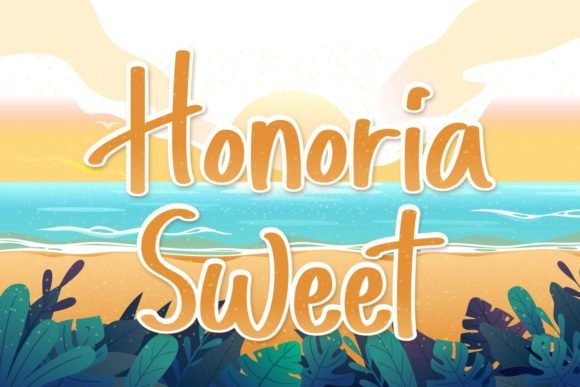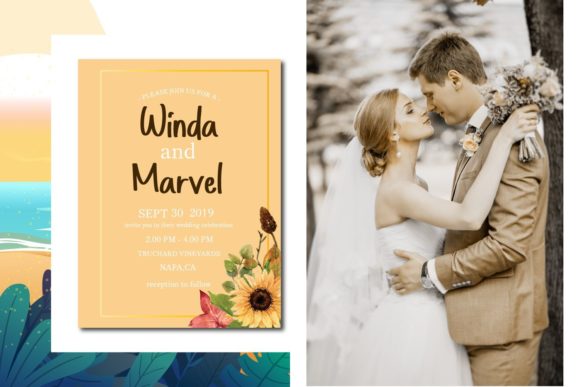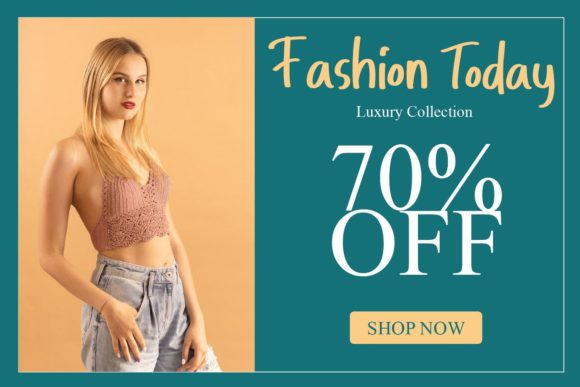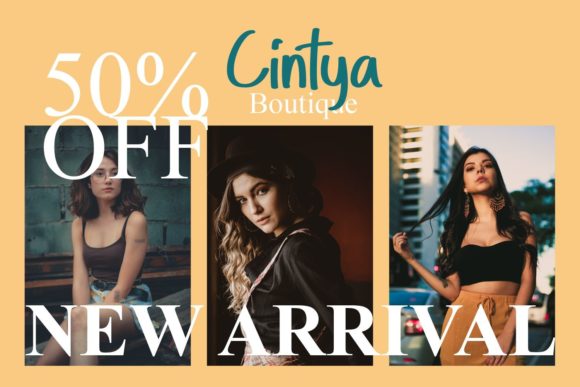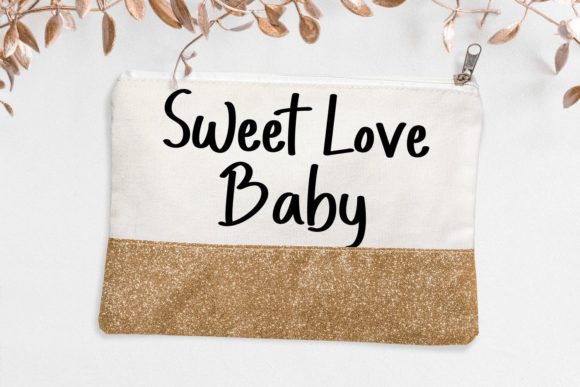
The Joy of Handwritten Typography
Have you ever been brainstorming a new project, and suddenly, a spark of creativity strikes? You envision the perfect font, the one that captures the essence of your brand and makes it stand out. For many designers, that moment of inspiration is what makes the creative process so exhilarating.
For those moments of inspiration, you’ll want a font that’s as charming as it is versatile. That’s where the Honoria Sweet Font comes in – a delightful, handwritten font that’s perfect for crafting eye-catching logos, branding, and quotes. With its playful, friendly vibe, this font is sure to bring a smile to your audience’s faces.
As a designer, you know that the right font can make all the difference in your work. The Honoria Sweet Font is a valuable addition to any design toolkit, offering endless possibilities for creativity and self-expression. So why not have fun with it and see what amazing things you can create?
Honoria Sweet Font Key Features
- Font Family: Honoria Sweet Font
- Unique Characteristics: Elegant, refined, and sophisticated design; perfect for wedding invitations, luxury branding, and high-end packaging
Honoria Sweet Font Review
I recently had the chance to work with the Honoria Sweet Font, and I must say it’s a delightful addition to any design project. ✨ The elegant, cursive script is perfect for creating a sense of luxury and sophistication. The font’s gentle flow and connected strokes evoke a sense of whimsy and romance, making it ideal for wedding invitations, baby announcements, or any other occasion that calls for a touch of sweetness.
Here are some of the key features that stood out to me:
- ✨ Beautifully crafted script with a smooth, flowing feel
- ✨ Excellent for creating a sense of luxury and sophistication
- ✨ Wide range of language support, making it suitable for international designs
- ✨ High-quality vector files for crisp, clear rendering at any size
However, I did encounter a few limitations:
- ⚠️ Limited bold weight options, which can make it difficult to create a bold, eye-catching headline
- ⚠️ Some characters may not render properly in certain fonts or font sizes
Overall, I’m impressed with the Honoria Sweet Font, and I would recommend it to anyone looking to add a touch of elegance and sophistication to their design project. With a little creativity and experimentation, I’m confident that you’ll be able to work around the limitations and achieve stunning results.
Tips for Getting the Most Out of Honoria Sweet Font
To get the most out of the Honoria Sweet Font, consider the following tips:
Use it for formal invitations, wedding stationery, and other elegant designs.
Combine it with distressed or vintage elements for a unique look.
The Honoria Sweet Font is commonly used for:
Formal event invitations.
Elegant business cards and letterheads.
High-end packaging and branding materials.
Alternatives to Honoria Sweet Font
Great Vibes Font is a beautiful, elegant script font that is perfect for adding a touch of sophistication to your designs. It is ideal for use in wedding invitations, greeting cards, and other creative projects where a romantic and whimsical feel is desired.
Compared to Honoria Sweet Font, Great Vibes Font has a more delicate and refined appearance, making it a great choice for projects where a softer look is preferred.
Carolyna Pro Font is a luxurious and elegant script font that is perfect for use in high-end designs. It is ideal for use in branding, packaging, and other creative projects where a sophisticated and refined feel is desired.
Compared to Honoria Sweet Font, Carolyna Pro Font has a more modern and sleek appearance, making it a great choice for projects where a contemporary look is preferred.